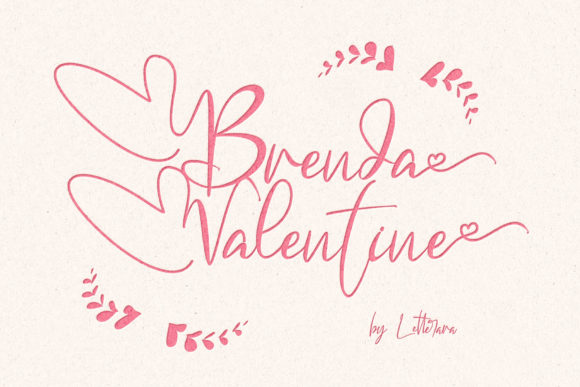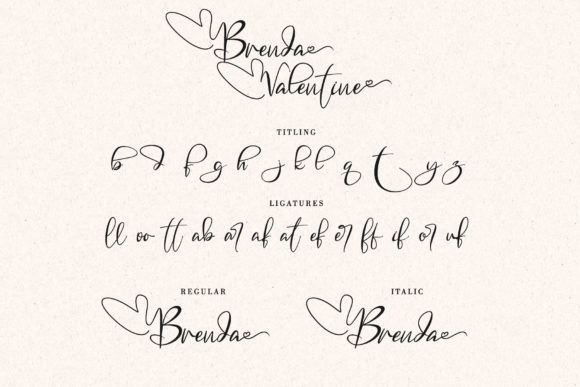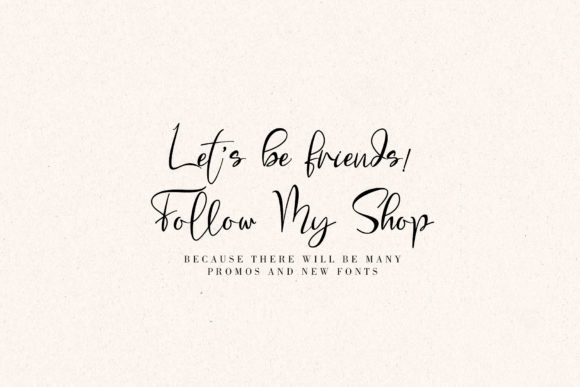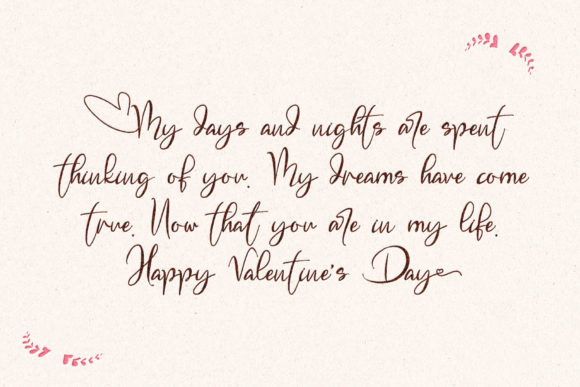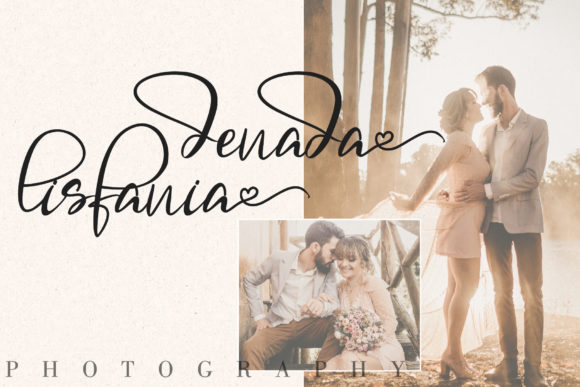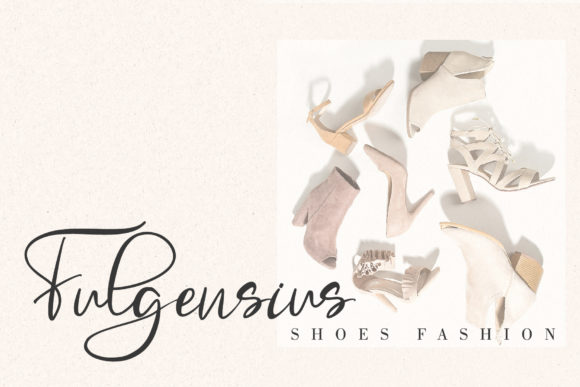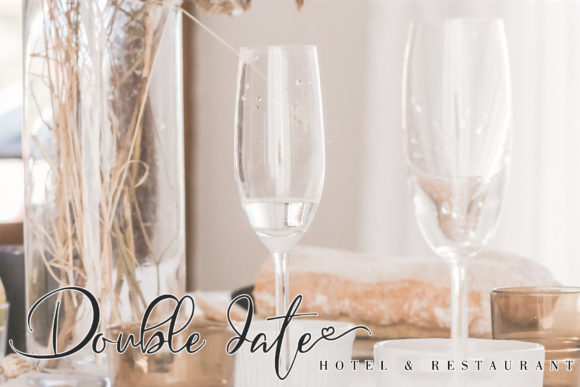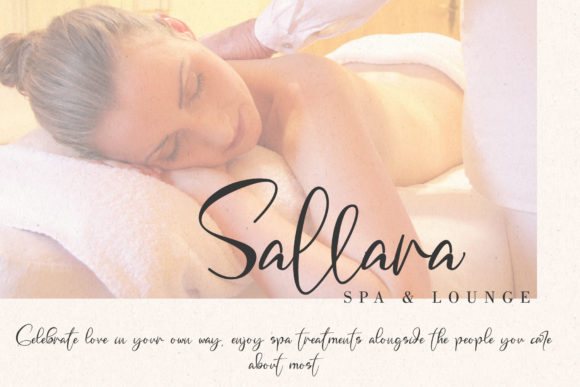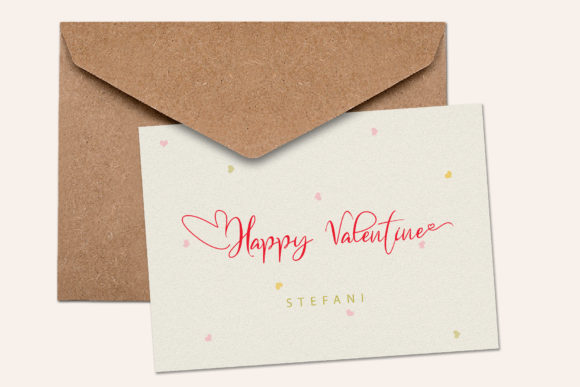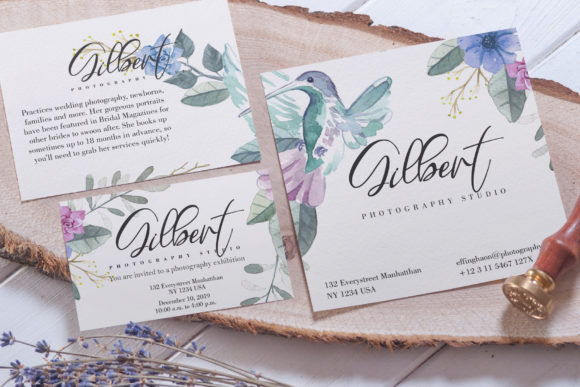
HomeScript FontsBrenda Valentine Font Script Fonts Brenda Valentine Font FacebookXPinterestWhatsApp Brenda Valentine Font Poster 2 Brenda Valentine Font Poster 3 Brenda Valentine Font Poster 4 Brenda Valentine Font Poster 5 Brenda Valentine Font Poster 6 Brenda Valentine Font Poster 7 Brenda Valentine Font Poster 8 Brenda Valentine Font Poster 9 Brenda Valentine Font Poster 10 Brenda Valentine Font Poster 11 About Brenda Valentine Font Brenda Valentine is a cute handwritten font. It will add a romantic touch to any crafting project. DOWNLOAD ON CREATIVE FABRICAThis font is sold and delivered by Creative Fabrica. Font Canyon may earn a commission if you buy through this link. People also explored Deliver Font Santing Limited Font Zoology Font Party Bahamas Font Bats Monogram Font Pionner Font Loveberry Font Grako Font 380 0 TagsBrenda Valentine Font Previous articleHallywood FontNext articleAleita Font LEAVE A REPLY Cancel reply Comment: Please enter your comment! Name:* Please enter your name here Email:* You have entered an incorrect email address! Please enter your email address here Website: Save my name, email, and website in this browser for the next time I comment. Personal Use Free Anggraini Personal Use Free Read more about this font Colourbars Personal Use Free Read more about this font Beautiful Personal Use Free Read more about this font Maharany Personal Use Free Read more about this font BLOG How to Install and Use Fonts on Windows, macOS, and Web Projects How to Install and Use Fonts on Windows, macOS, and Web Projects Fonts are a crucial part of design and branding. Whether you’re designing a... Free vs Paid Fonts: Why Investing in Premium Fonts Is Worth It Elegant Wedding Invitation Fonts – Handwritten & Script Fonts Transform Your Website: Elevate Your Typography with 7 Best Web Font Generators